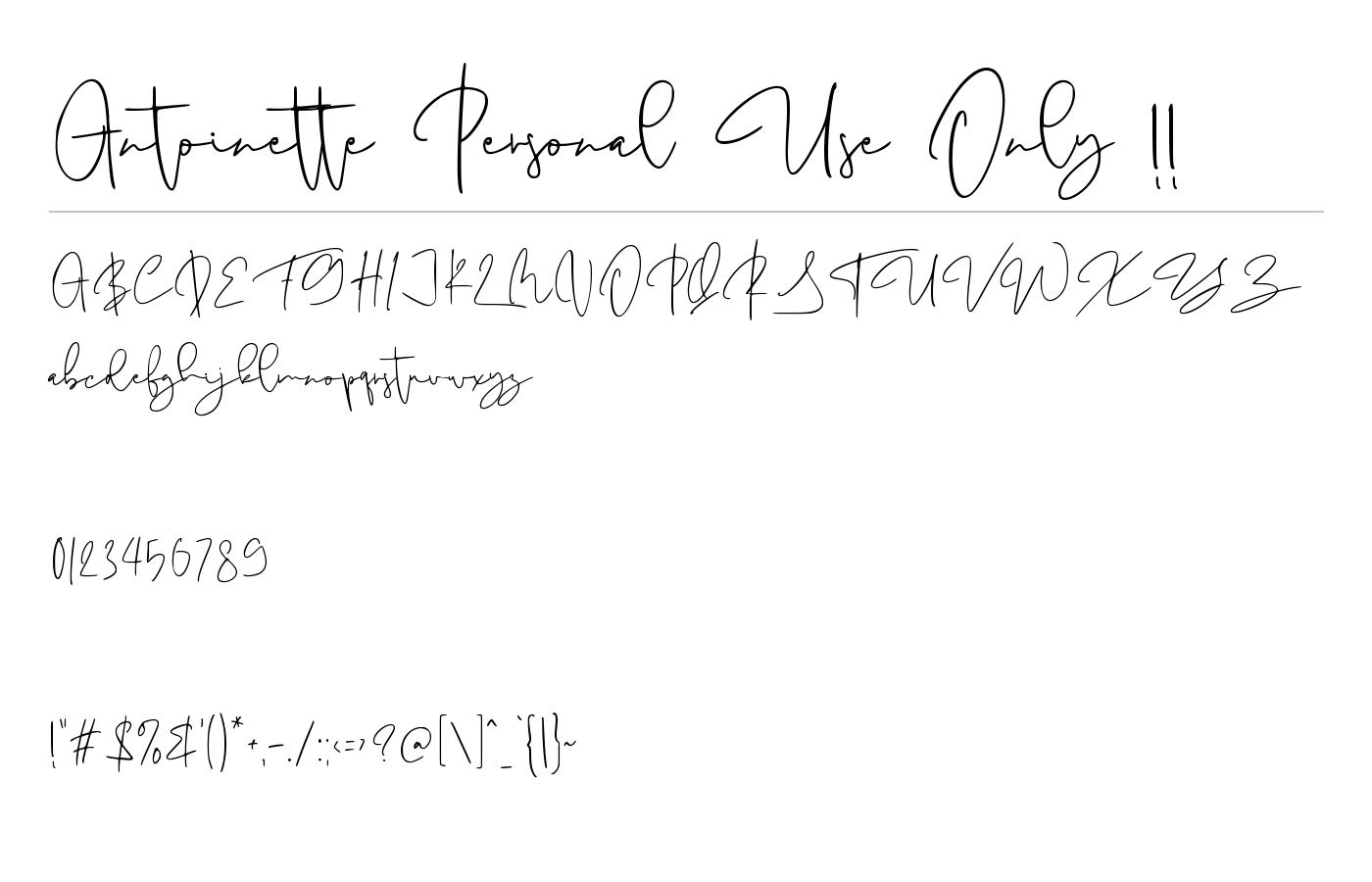
Antoinette Personal Use Only is a delicate, handwritten script font that features thin, flowing lines with a natural and elegant feel. Its airy and slender letterforms create a refined and personal touch, making it perfect for invitations, branding, and design projects that seek a sophisticated yet approachable look. This font works best in decorative titles and accent text where its graceful style can truly shine.
Antoinette Personal Use Only !! Font
About Antoinette Personal Use Only !! Font
| Font family | Antoinette Personal Use Only !! Font |
| Designer | Vava Aryanto |